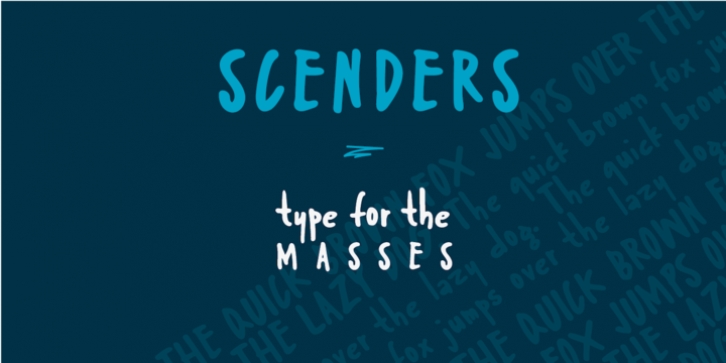
Scenders was designed by Juliane Bone and published by Juliane Bone. Scenders contains 1 style.
Scenders was inked first then digitized for the masses to use. Strong ascenders and descenders embellish the font, so the lowercase characters are quite compelling. Scenders is versatile, but it works very well in all caps headlines.